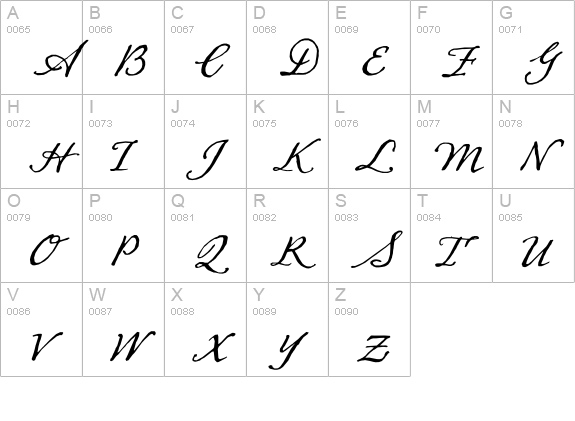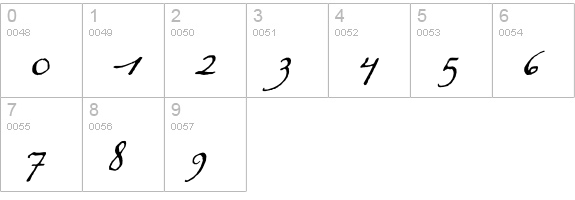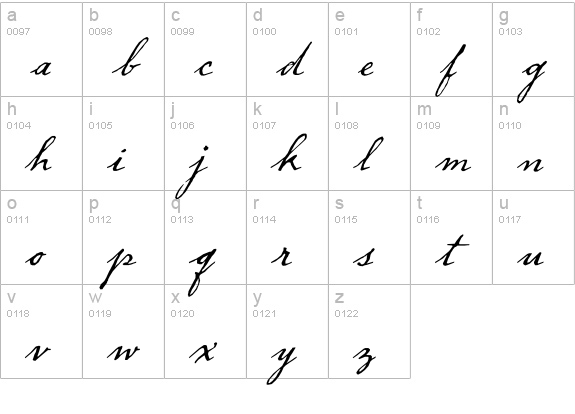
Dear Sarah font is a beautiful and elegant typeface that exudes charm and sophistication. With its delicate curves and flowing lines, this font is perfect for adding a touch of grace to any project. Whether you're designing invitations, creating a logo, or crafting a greeting card, Dear Sarah font is sure to impress. The best part? Dear Sarah font is completely free to download at FontsMarket.com. That's right, you can add this stunning font to your collection without spending a dime. Don't miss out on the opportunity to elevate your designs with the timeless beauty of Dear Sarah font. Download it today and let your creativity shine!